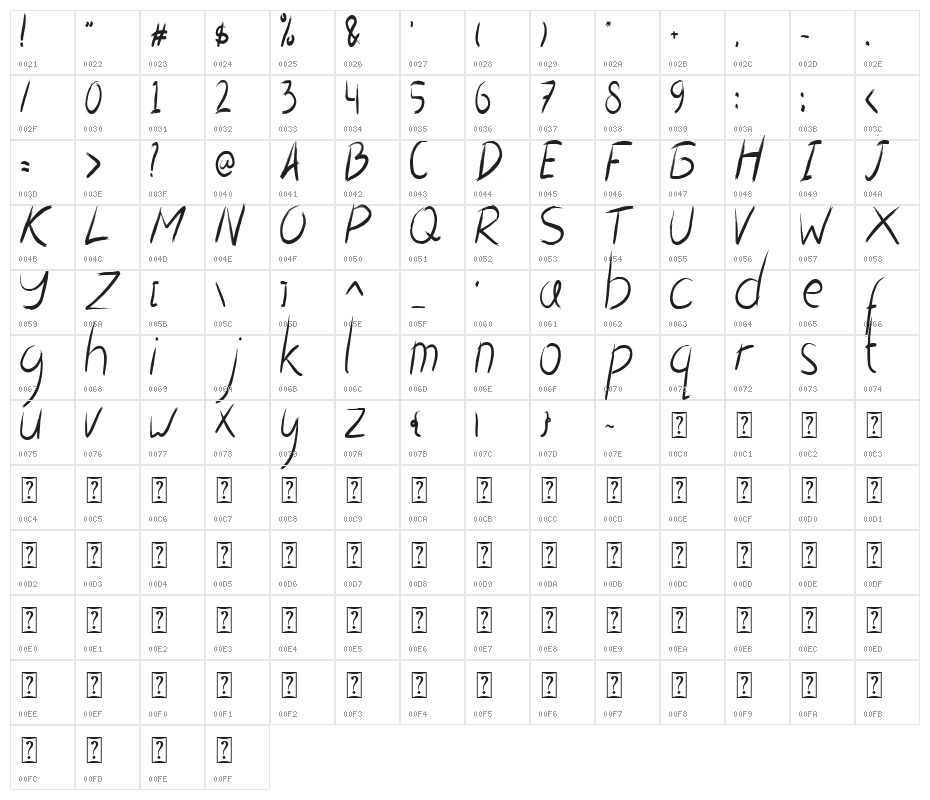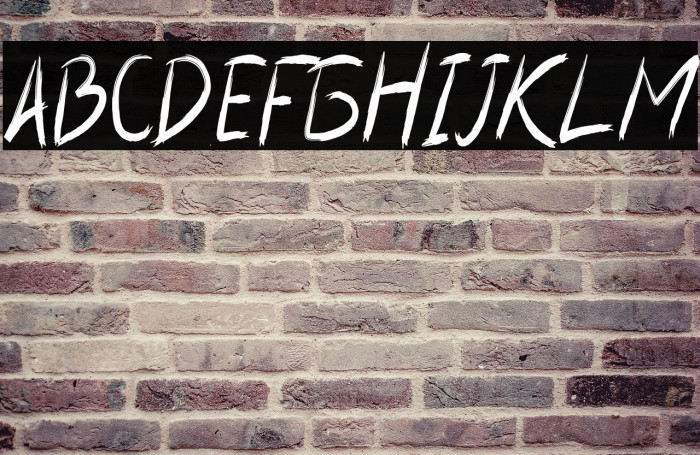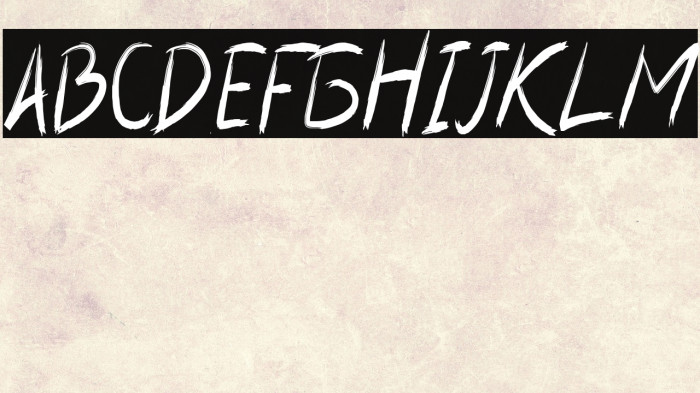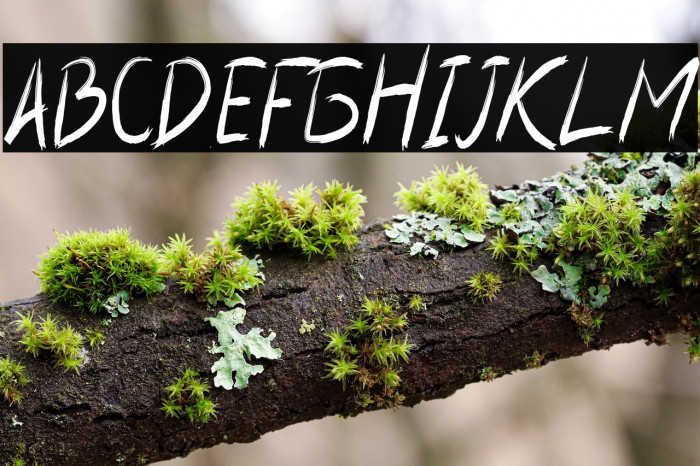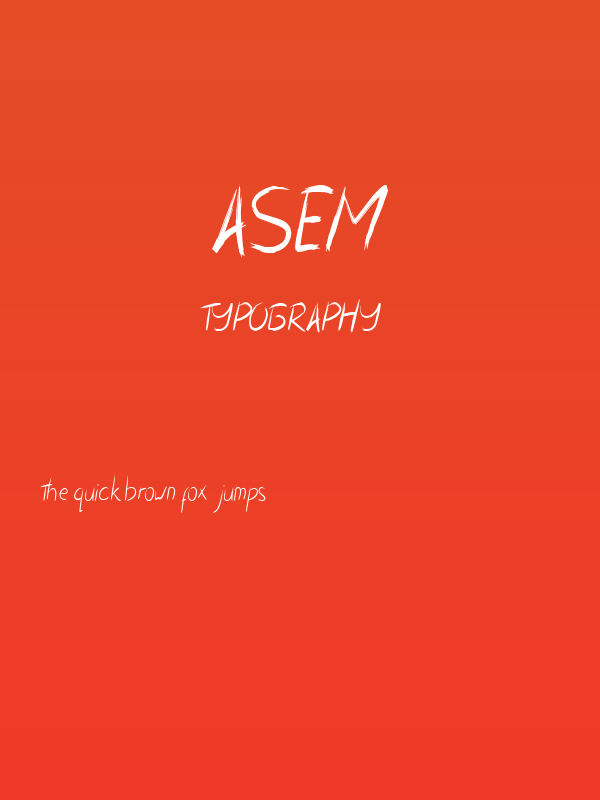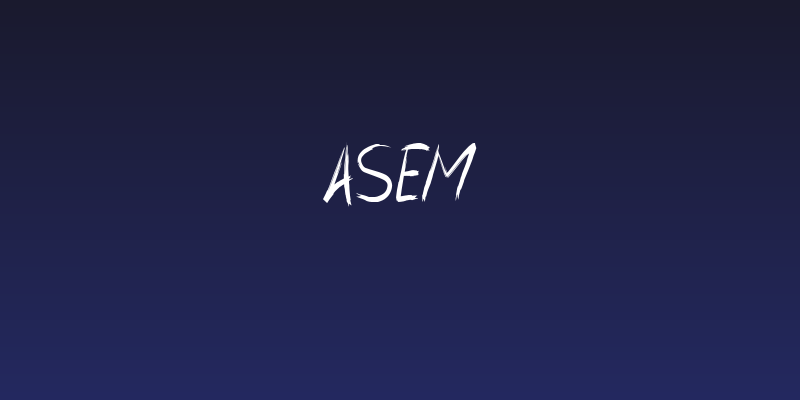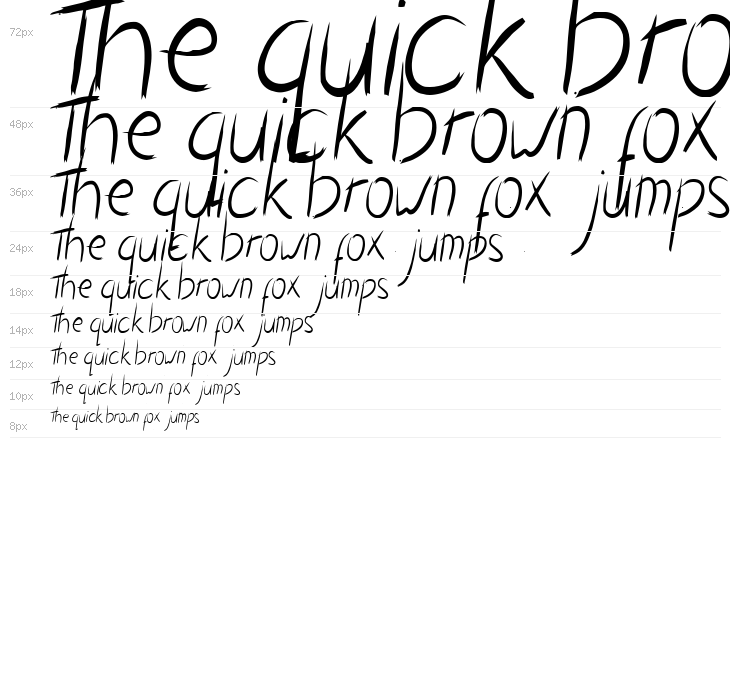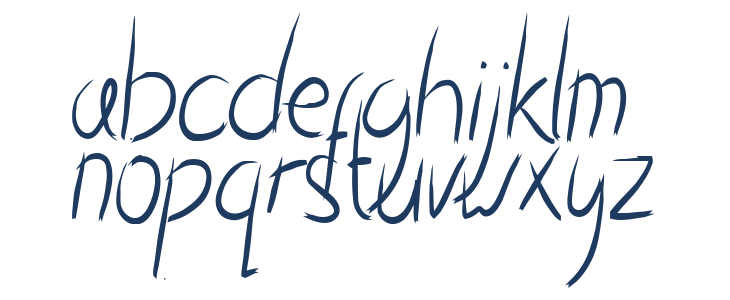
Asem Font
Asem Description
This font exhibits a dynamic and energetic style, characterized by its brush-like strokes and fluid motion. The letters have a hand-drawn appearance, with varying thickness that adds a sense of movement and spontaneity. The uppercase and lowercase letters maintain a consistent style, with elongated and slightly slanted forms that create a cohesive look. The numerals and special characters follow the same aesthetic, ensuring uniformity across all elements. This font's artistic flair makes it suitable for creative and expressive projects.